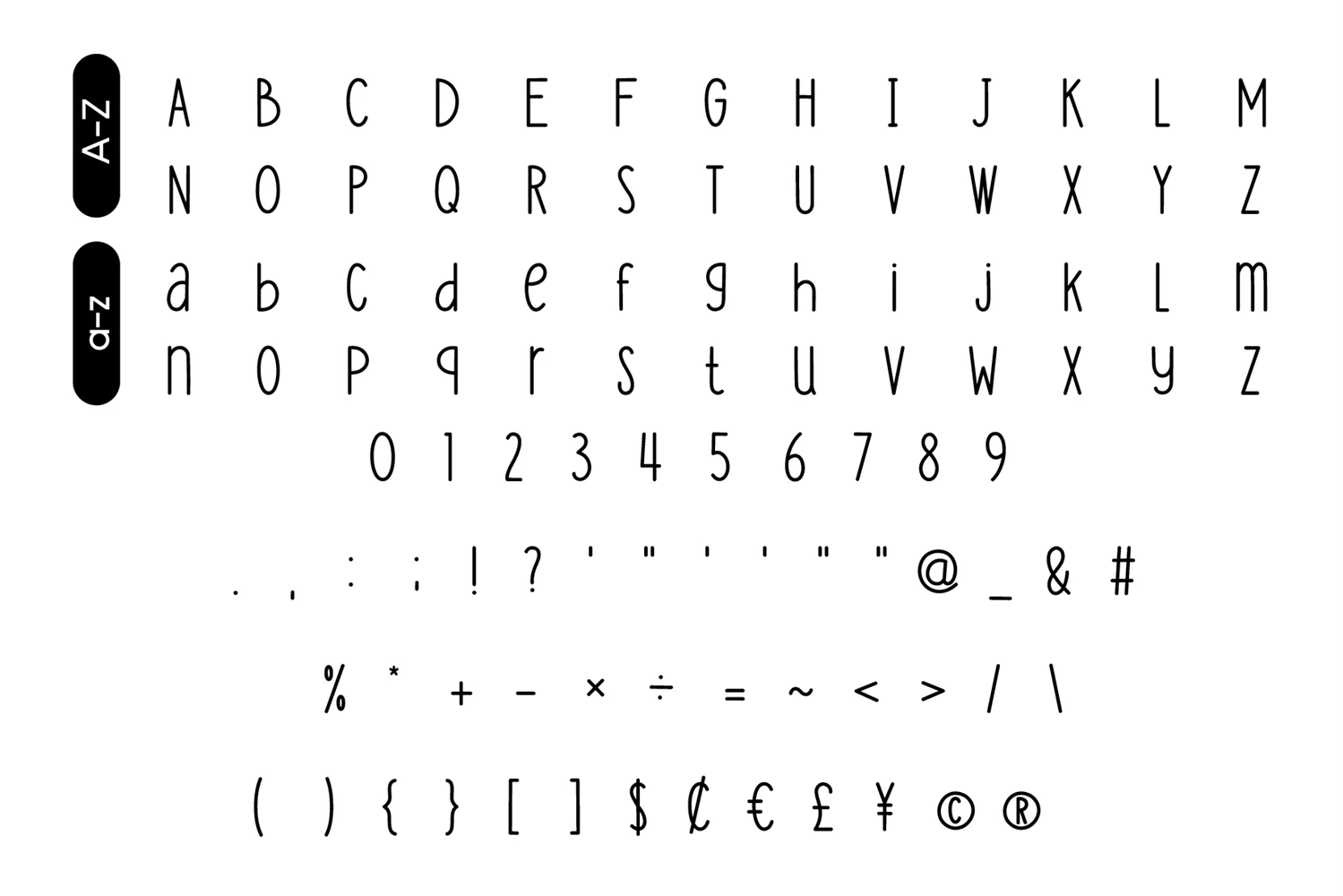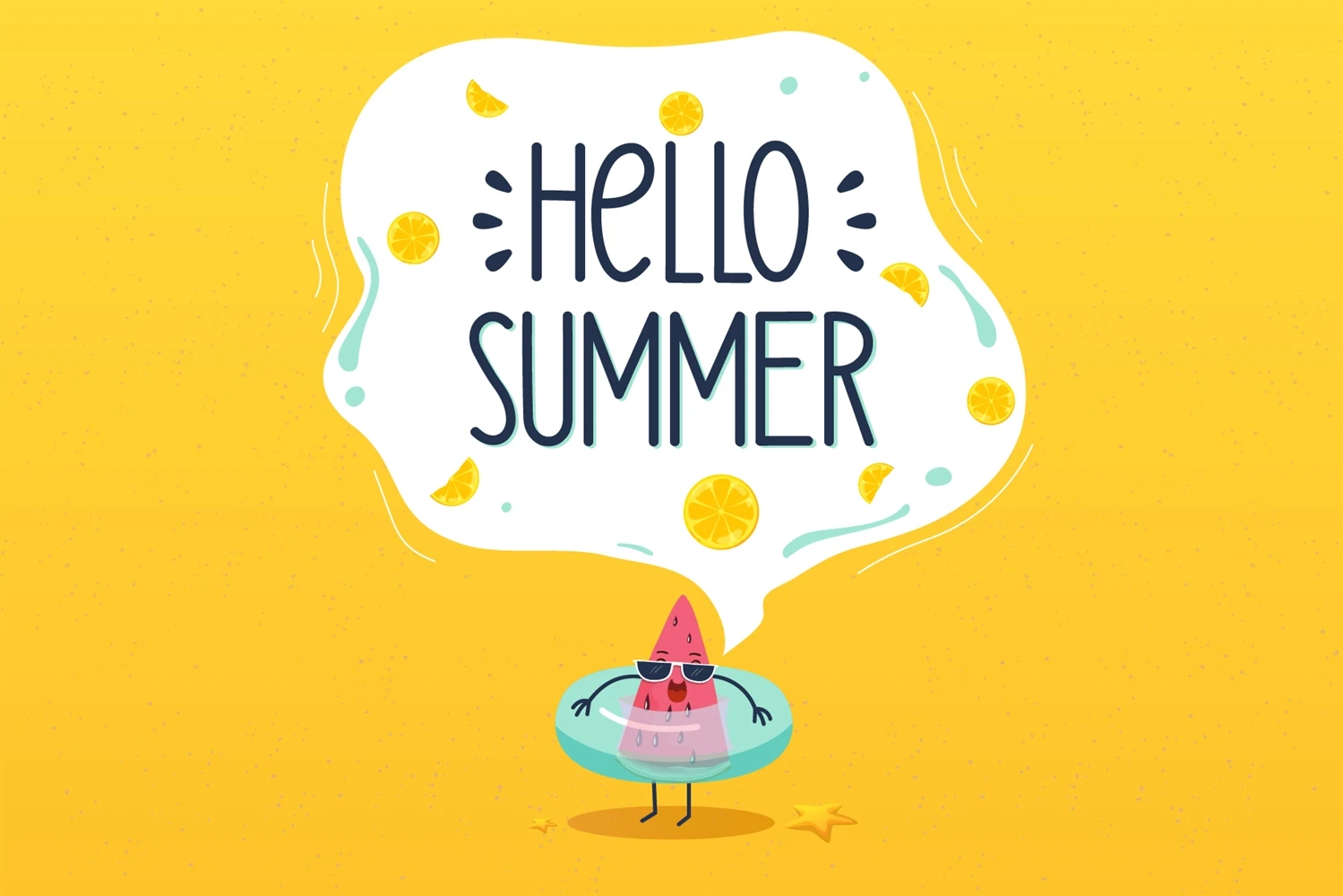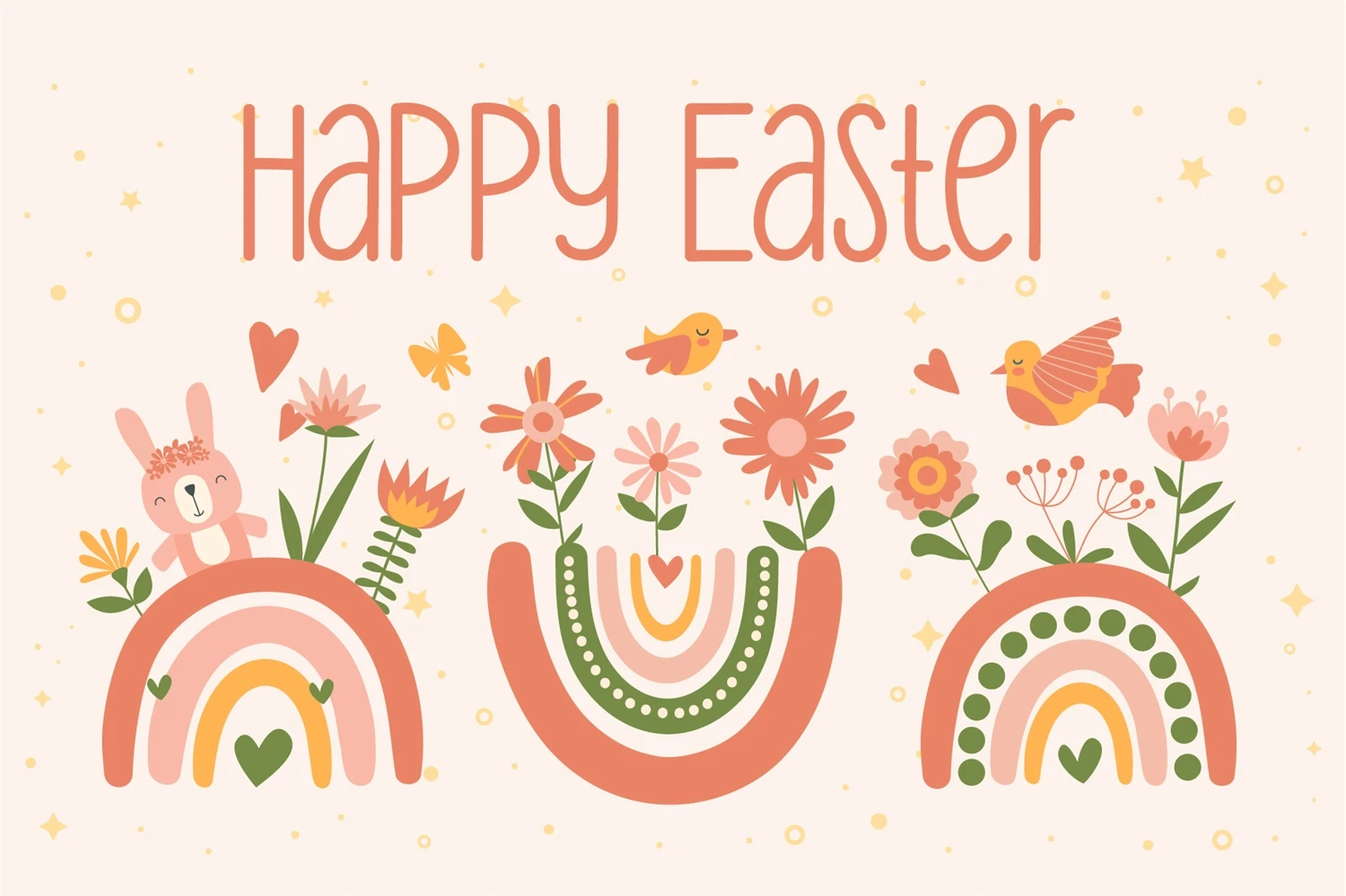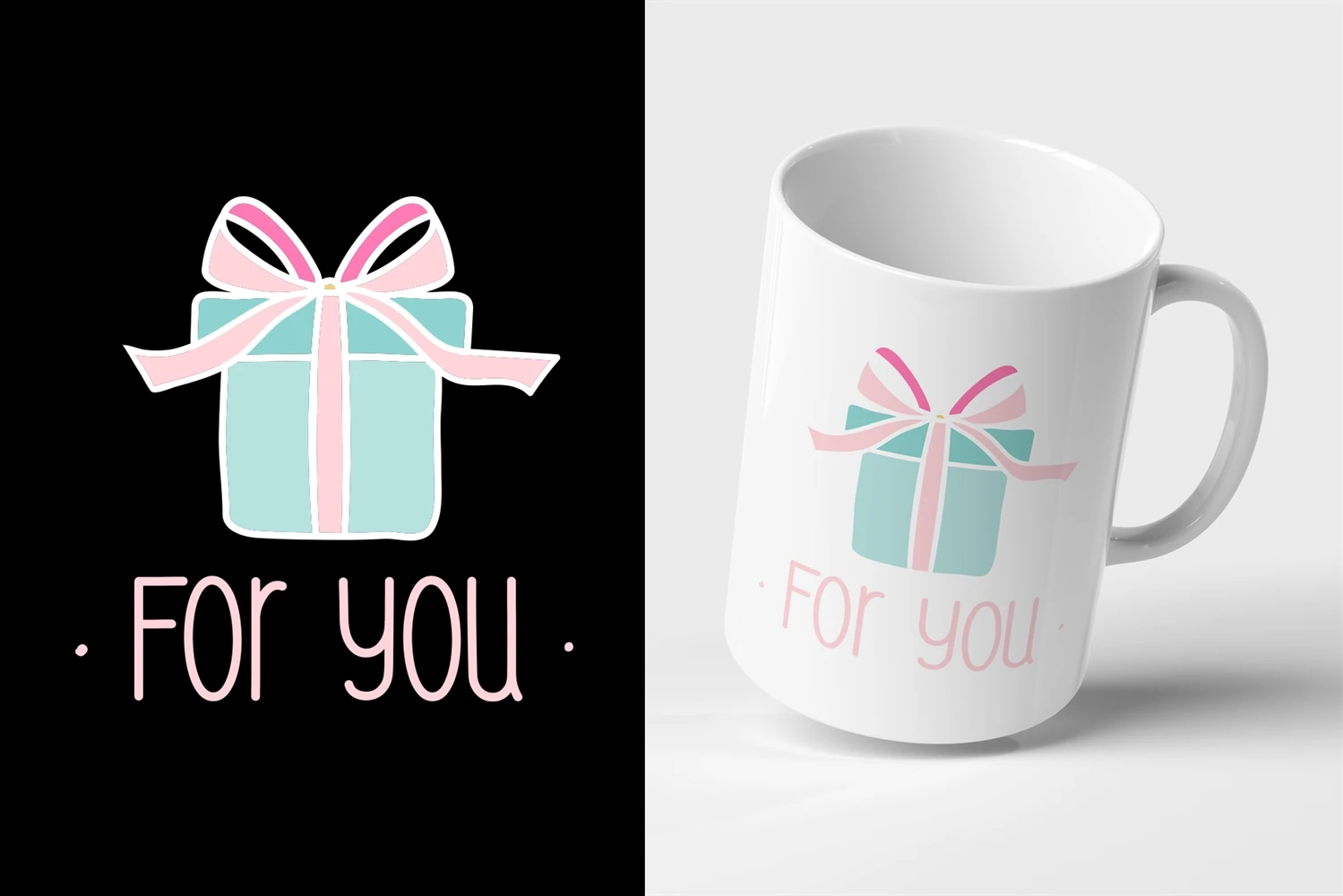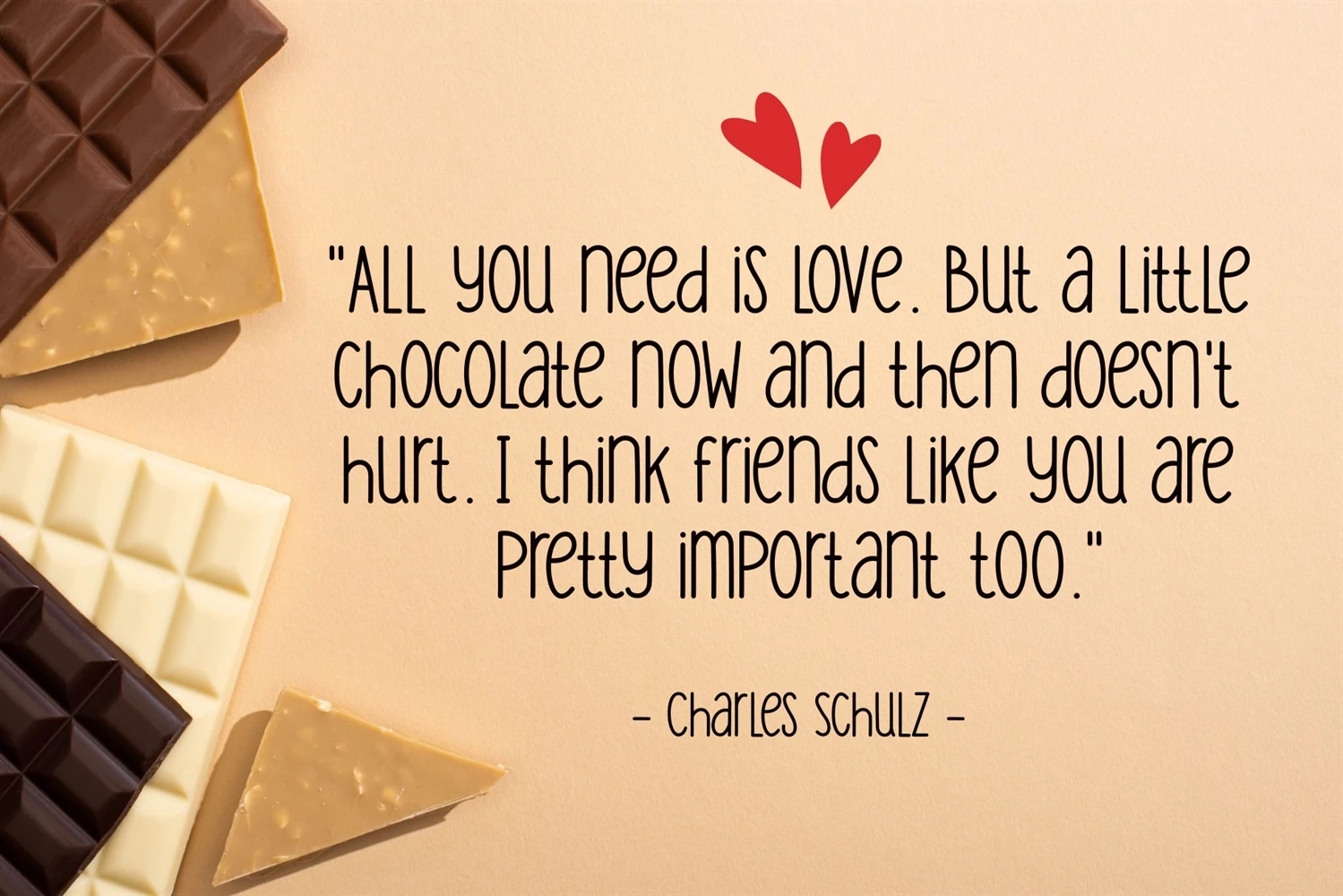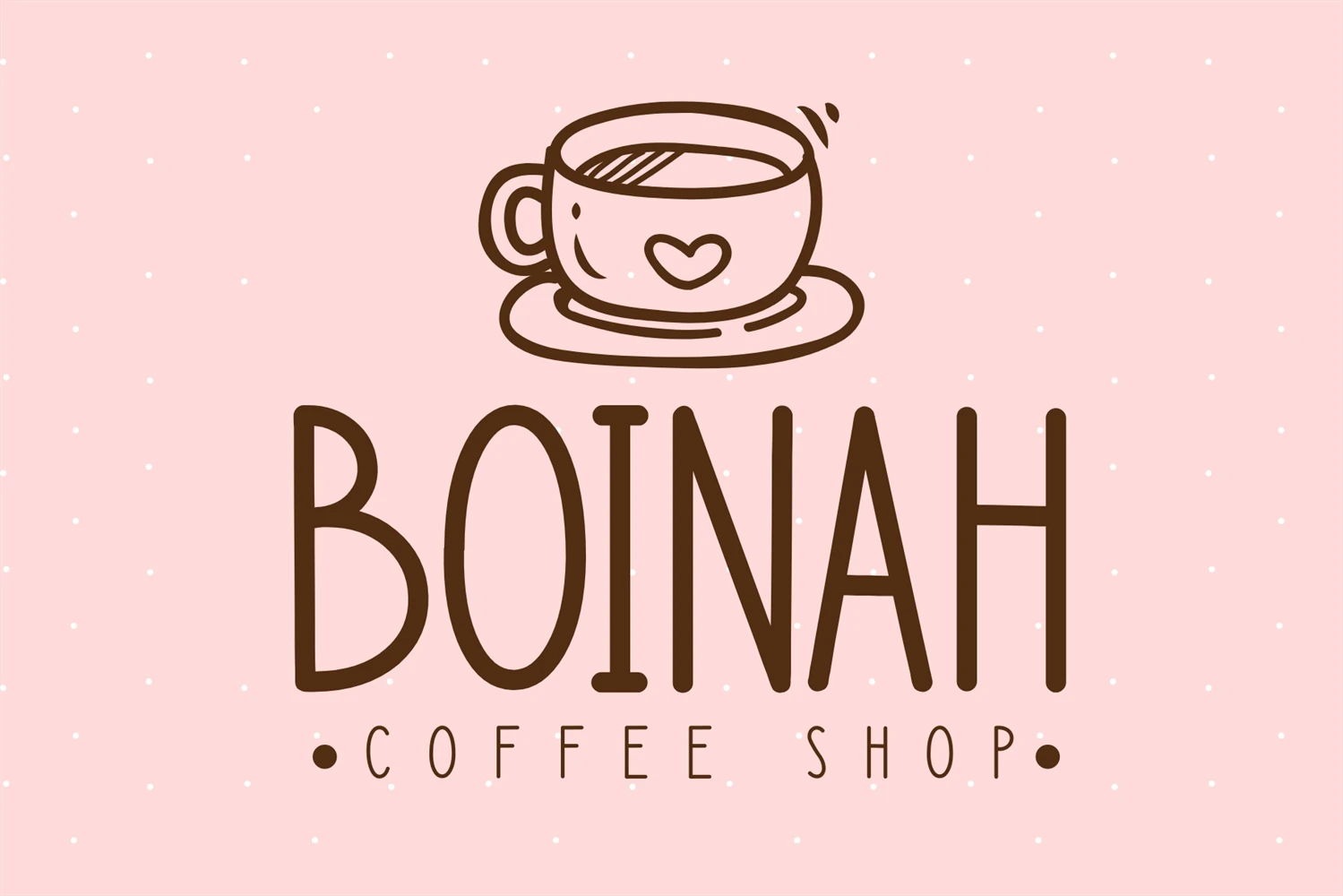
Emily Cute is a cute lettered sans serif font that is easy to read and joyful. You can use it for various projects, such as blog posts, logos, branding, ads, invitations, greeting cards, planners, photo albums, decorations, and much more. Add it to any of your designs, and enjoy the results!